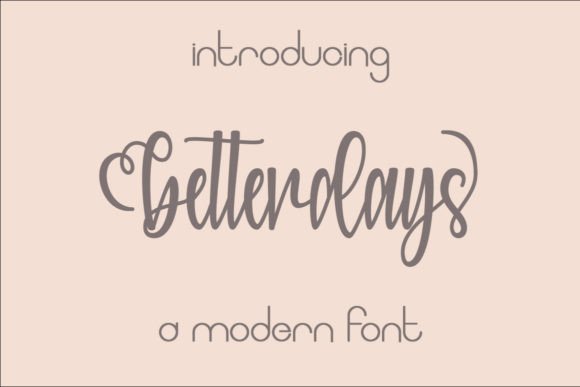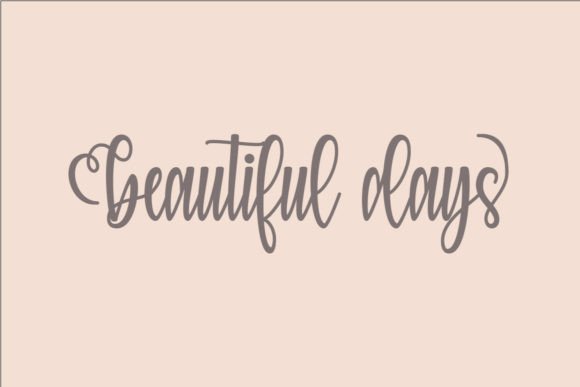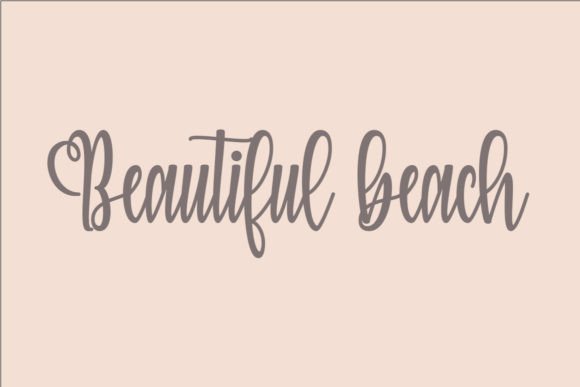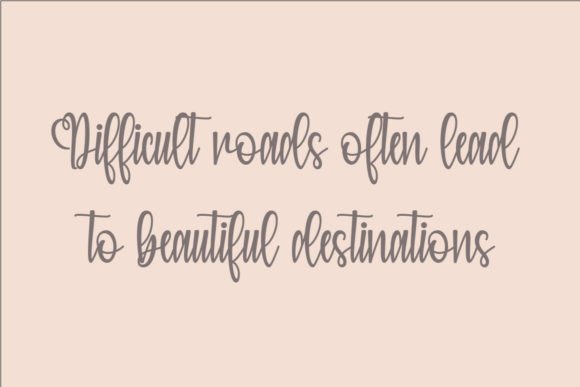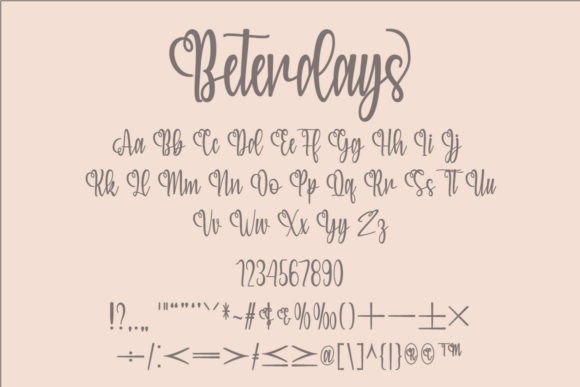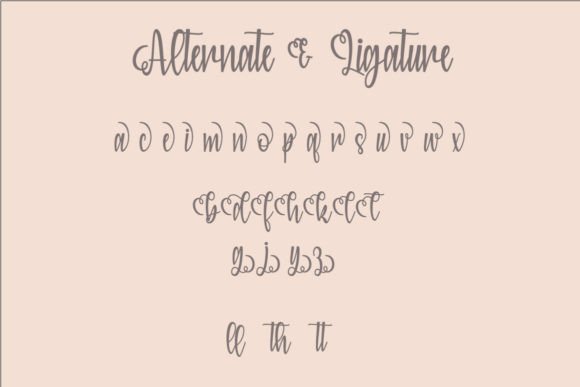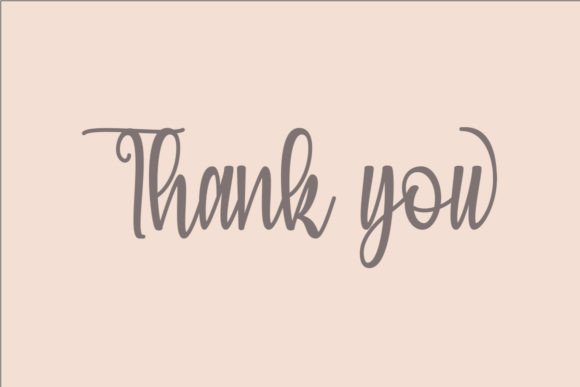
Betterdays Font
About Betterdays Font
Betterdays is a captivating handwritten font that exudes enchantment and versatility. This typeface is well-suited for a diverse range of applications, spanning from greeting cards to headlines. With its charming and adaptable design, Betterdays proves to be a valuable asset for various creative projects. Notably, it comes PUA encoded, granting you seamless access to all the glyphs and swashes for enhanced customization.
The enchanting quality of Betterdays is evident in its handwritten charm, which brings a personal and warm touch to your designs. The font’s fluid strokes and carefully crafted letterforms contribute to a visual appeal that is both captivating and approachable.
The versatility of Betterdays shines through in its ability to adapt to different contexts. Whether you’re working on designing greeting cards, where the font’s whimsical charm adds a touch of personality, or creating compelling headlines that demand attention, Betterdays proves to be a flexible and expressive choice.
In conclusion, Betterdays is not just a font; it’s a versatile and enchanting design tool that enhances a wide spectrum of creative projects. From the charm of greeting cards to the impact of headlines, Betterdays brings a delightful touch to your designs. The added convenience of PUA encoding ensures that you can explore and personalize every aspect of this captivating handwritten font, making it a valuable addition to your creative toolkit.